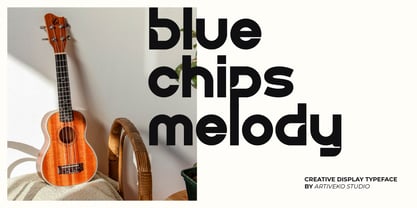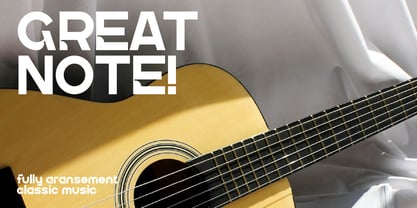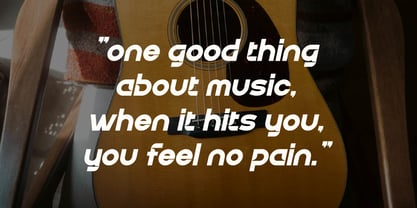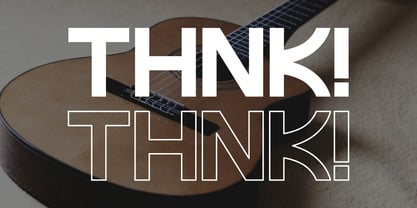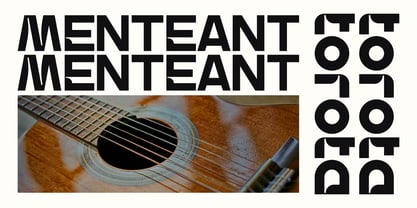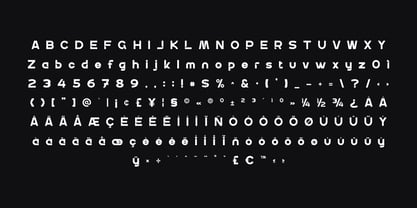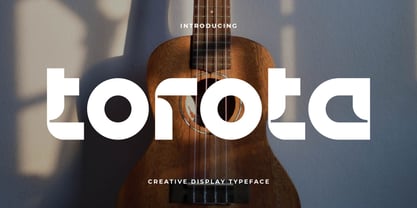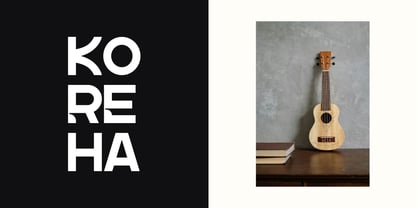
Torota
by Artiveko
The Torota Font Family was designed by Iwan Alwan and published by Artiveko. Torota contains 2 styles and family package options. More about this family
Torota is a modern display sans serif typeface crafted to deliver strong and eye-catching typography. Featuring clean lines, balanced proportions, and a bold visual presence, Torota is ideal for headlines, posters, branding, logos, packaging, and contemporary design projects. Its display-focused structure ensures your text stands out clearly in large sizes while maintaining readability and visual harmony. Torota embodies a modern, confident, and versatile style that seamlessly adapts to both print and digital media. Whether you’re designing for advertising, social media, creative campaigns, or brand identity, Torota provides clarity, impact, and a professional aesthetic. More than just a font, Torota is engineered to make your message resonate.
Designers: Iwan Alwan
Foundry: Artiveko
Artiveko is a font design team based in Indonesia, comprised of several talented font designers who commenced their careers in the font design industry in 2020. With a dedicated focus on crafting fonts, the team members bring their collective expertise and passion to every project they undertake. Situated in Indonesia, Artiveko draws inspiration from the vibrant cultural landscape of the region, infusing their creations with unique flavors and aesthetics.The team's font collection encompasses a diverse range of styles, including serif, sans serif, handwritten, and script typefaces. Each typeface is meticulously crafted to meet the demands of modern design while offering versatility and functionality across various applications. Whether it's the classic elegance of serif fonts, the contemporary appeal of sans serif designs, the personal touch of handwritten scripts, or the expressive flourishes of script fonts, Artiveko ensures that every font reflects their dedication to quality and innovation.Artiveko's fonts have garnered recognition and acclaim, with their works being featured on prominent social media platforms like Creative Market. Through these platforms, the team has been able to connect with a global audience of designers and typographers, further amplifying their reach and influence in the industry. Their fonts are celebrated for their impeccable craftsmanship, attention to detail, and ability to elevate design projects with style and sophistication.As Artiveko continues to evolve and expand its font collection, the team remains committed to pushing the boundaries of typography and setting new standards of excellence. With a relentless focus on creativity, innovation, and collaboration, Artiveko strives to inspire and empower designers around the world with their distinctive and versatile font designs.